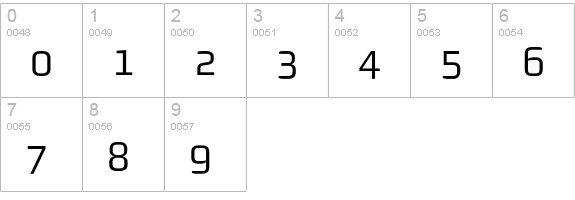
MorganSnOffice Font Details
Introducing MorganSnOffice font, a versatile and modern typeface designed to elevate your design projects to the next level. This elegant and sleek font is perfect for a wide range of applications, from branding to editorial design. With its clean lines and contemporary feel, MorganSnOffice font adds a touch of sophistication to any project. But the best part? MorganSnOffice font is completely free to download at FontsMarket.com. Yes, you read that right - this high-quality font can be yours at no cost. Take advantage of this amazing offer and enhance your designs with the beauty and style of MorganSnOffice font today.